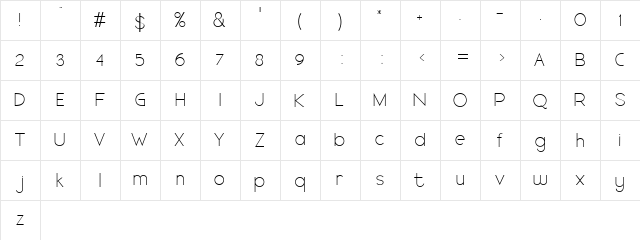
ARTHIQUE DEMO Regular Font Preview
ARTHIQUE DEMO Regular
ARTHIQUE DEMO Regular Font Details
| Foundry | SHEILLATYPE |
| Designer | MOH.TAUFIQ |
Design Context for ARTHIQUE DEMO Typeface
ARTHIQUE DEMO is a composed and adaptable typeface that performs quietly and consistently across a wide range of design contexts.